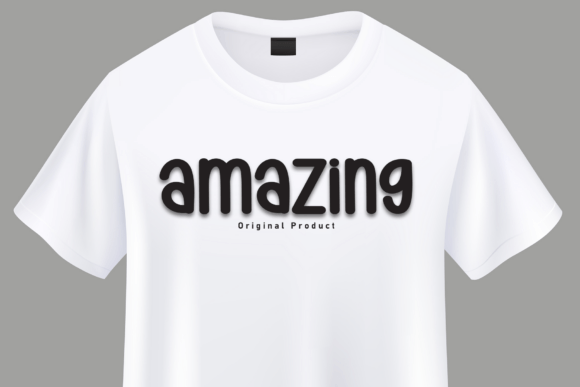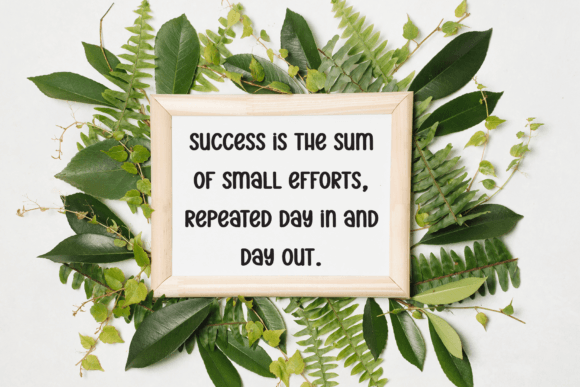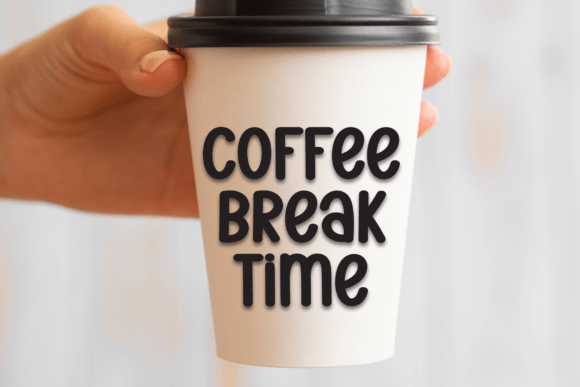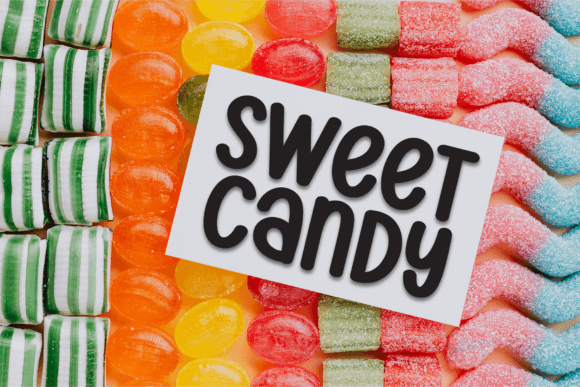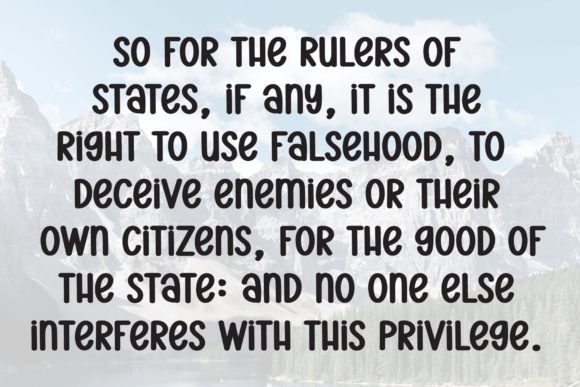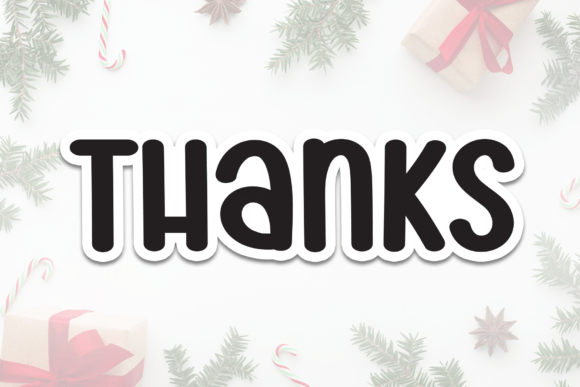
Christmas is Coming Font: A Timeless Handwritten Font for Your Holiday Designs
Are you looking for a font that will add a touch of magic to your holiday designs? Look no further than the Christmas is Coming font! This lovely and timeless handwritten font is perfect for creating eye-catching logos, branding, and quotes that will make your design come alive. In this article, we’ll take a closer look at the Christmas is Coming font and explore its features, benefits, and uses.
What is Christmas is Coming Font?
Christmas is Coming font is a beautiful handwritten font that is inspired by the classic and elegant scripts of the past. Every letter has a unique and beautiful touch, which makes it perfect for adding a personal and whimsical touch to your designs. The font is highly legible and versatile, making it suitable for a wide range of design projects, from logos and branding to quotes and social media graphics.
Features of Christmas is Coming Font
So, what makes Christmas is Coming font so special? Here are some of its key features:
- Unique and Beautiful Letters: Every letter in the Christmas is Coming font has a unique and beautiful touch, which makes it perfect for adding a personal and whimsical touch to your designs.
- Handwritten Style: The font has a handwritten style that gives it a warm and cozy feel, perfect for holiday designs.
- Highly Legible: The font is highly legible, making it easy to read and understand, even at small sizes.
- Versatile: The font is versatile and can be used for a wide range of design projects, from logos and branding to quotes and social media graphics.
Benefits of Using Christmas is Coming Font
So, why should you use Christmas is Coming font for your holiday designs? Here are some of its benefits:
- Adds a Personal Touch: The font adds a personal and whimsical touch to your designs, making them stand out from the crowd.
- Perfect for Holiday Designs: The font is perfect for holiday designs, including Christmas cards, decorations, and social media graphics.
- High-Quality: The font is of high-quality, making it perfect for professional designs.
Uses of Christmas is Coming Font
So, what can you use Christmas is Coming font for? Here are some ideas:
- Logos and Branding: Use the font to create eye-catching logos and branding for your business or personal projects.
- Quotes and Social Media Graphics: Use the font to create beautiful quotes and social media graphics that will make your followers smile.
- Christmas Cards and Decorations: Use the font to create beautiful Christmas cards and decorations that will add a personal touch to your holiday celebrations.
- Invitations and Party Decorations: Use the font to create beautiful invitations and party decorations that will make your party stand out.
Tips for Using Christmas is Coming Font
Here are some tips for using Christmas is Coming font:
- Use it with Other Fonts: Use the font with other fonts to create a unique and interesting design.
- Keep it Simple: Keep your design simple and clean to make the font stand out.
In conclusion, Christmas is Coming font is a lovely and timeless handwritten font that is perfect for adding a personal and whimsical touch to your holiday designs. With its unique and beautiful letters, highly legible style, and versatility, it’s the perfect choice for designers and crafters looking to create eye-catching logos, branding, and quotes. So why wait? Download Christmas is Coming font today and start creating your own magical holiday designs!